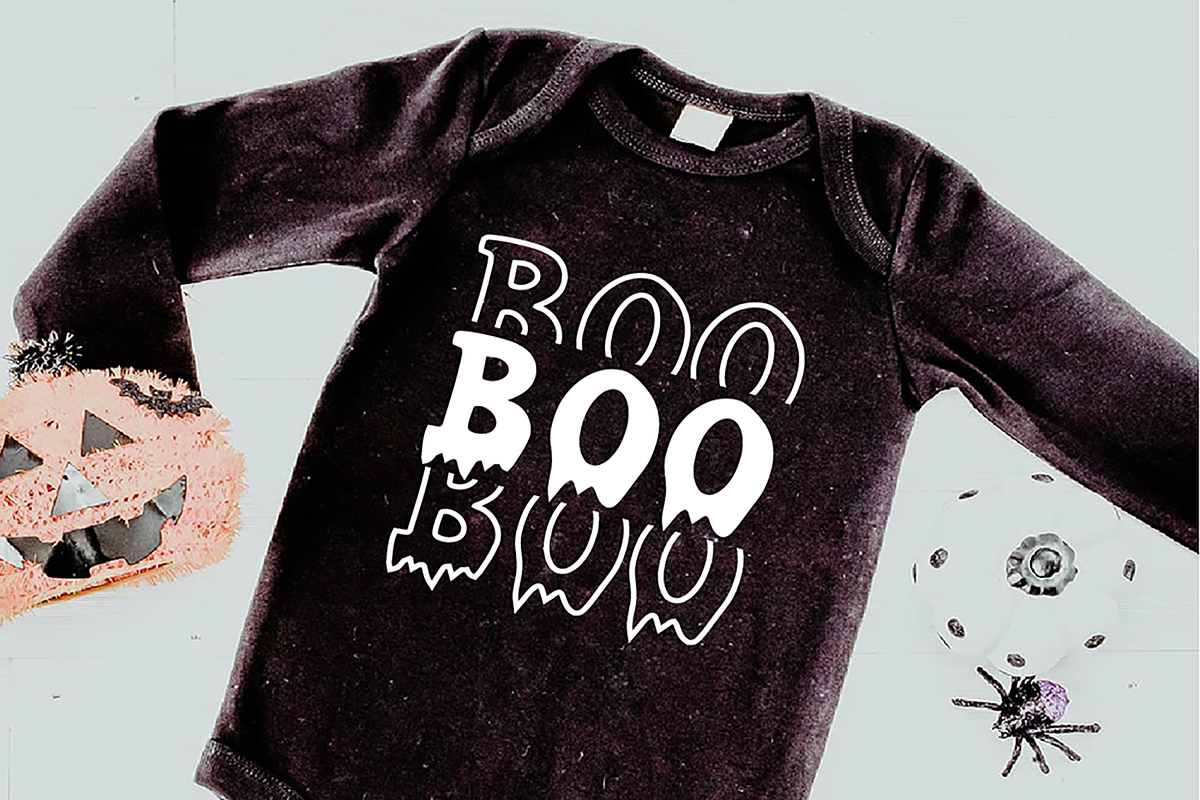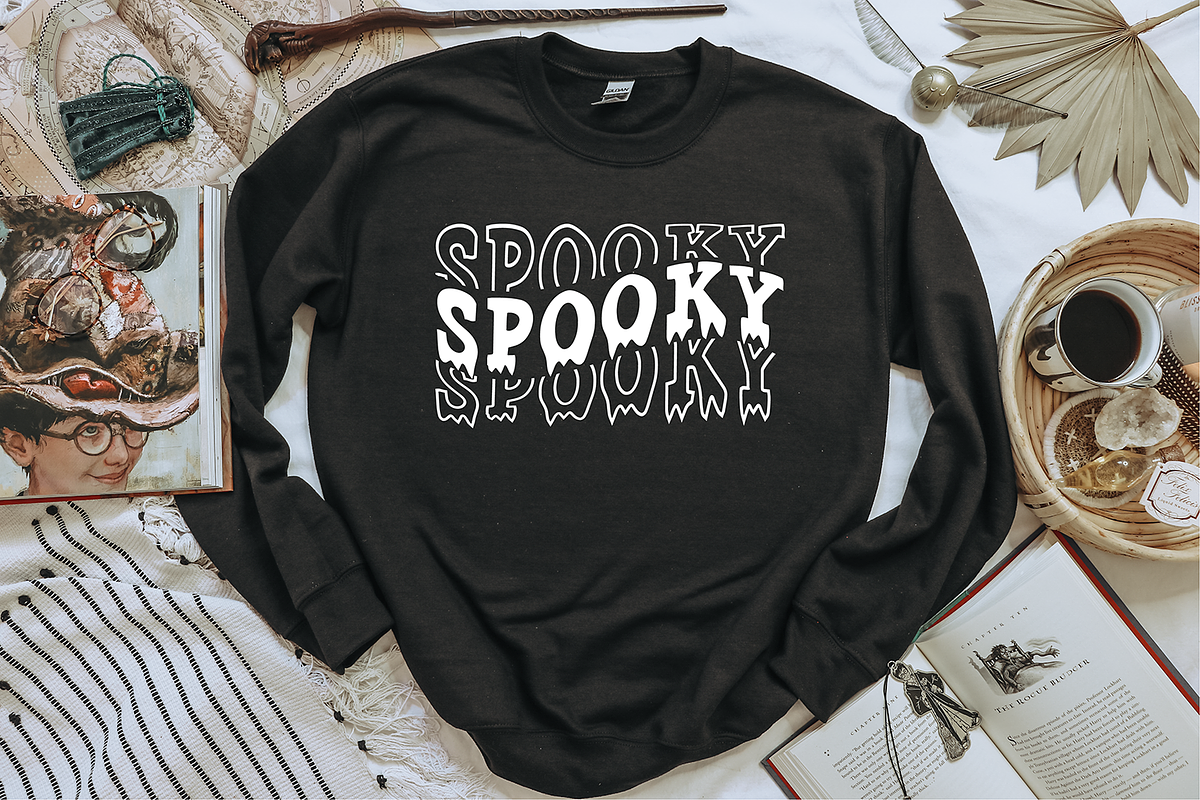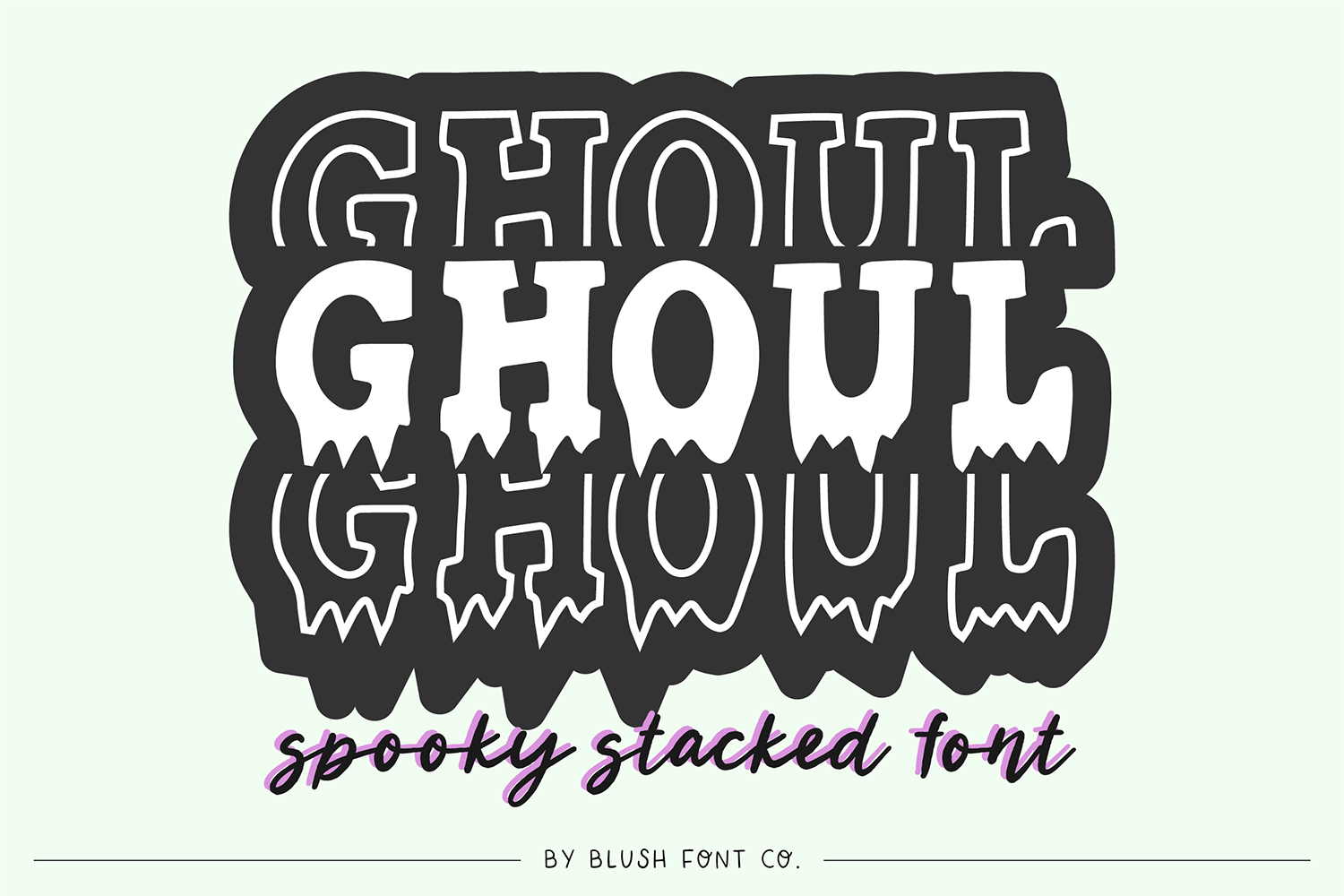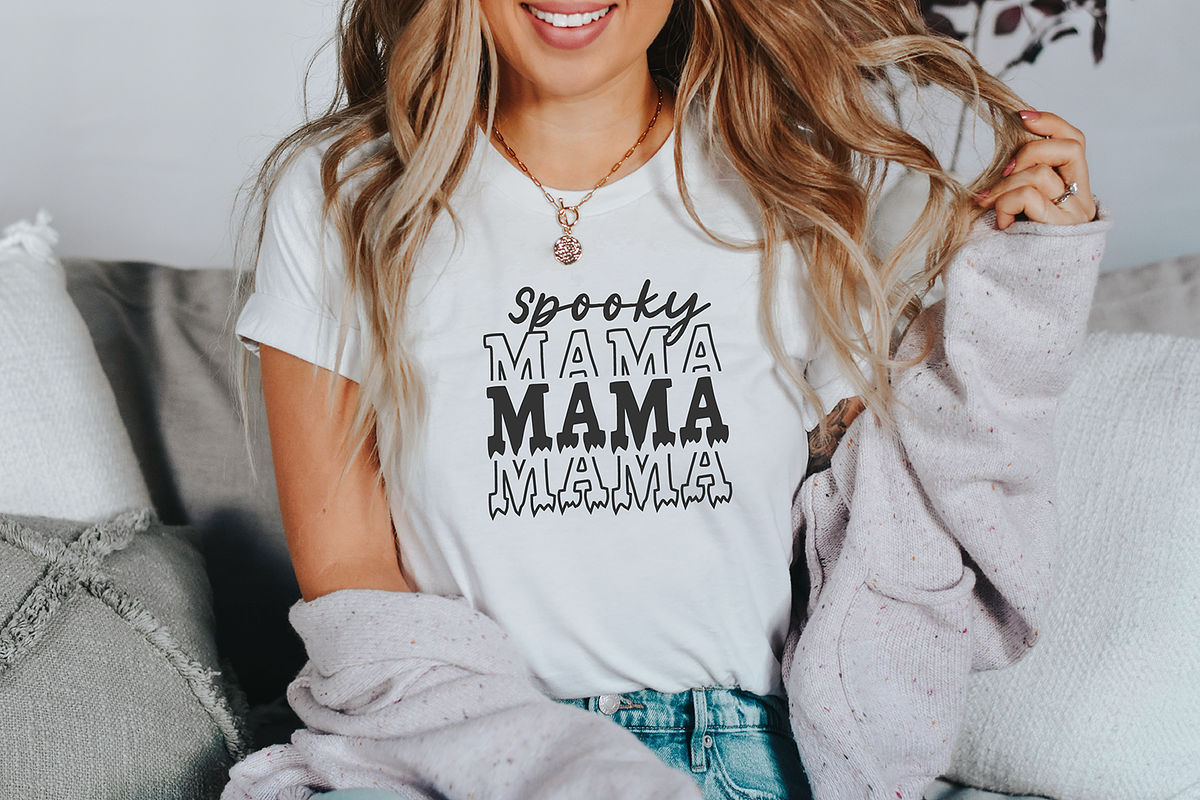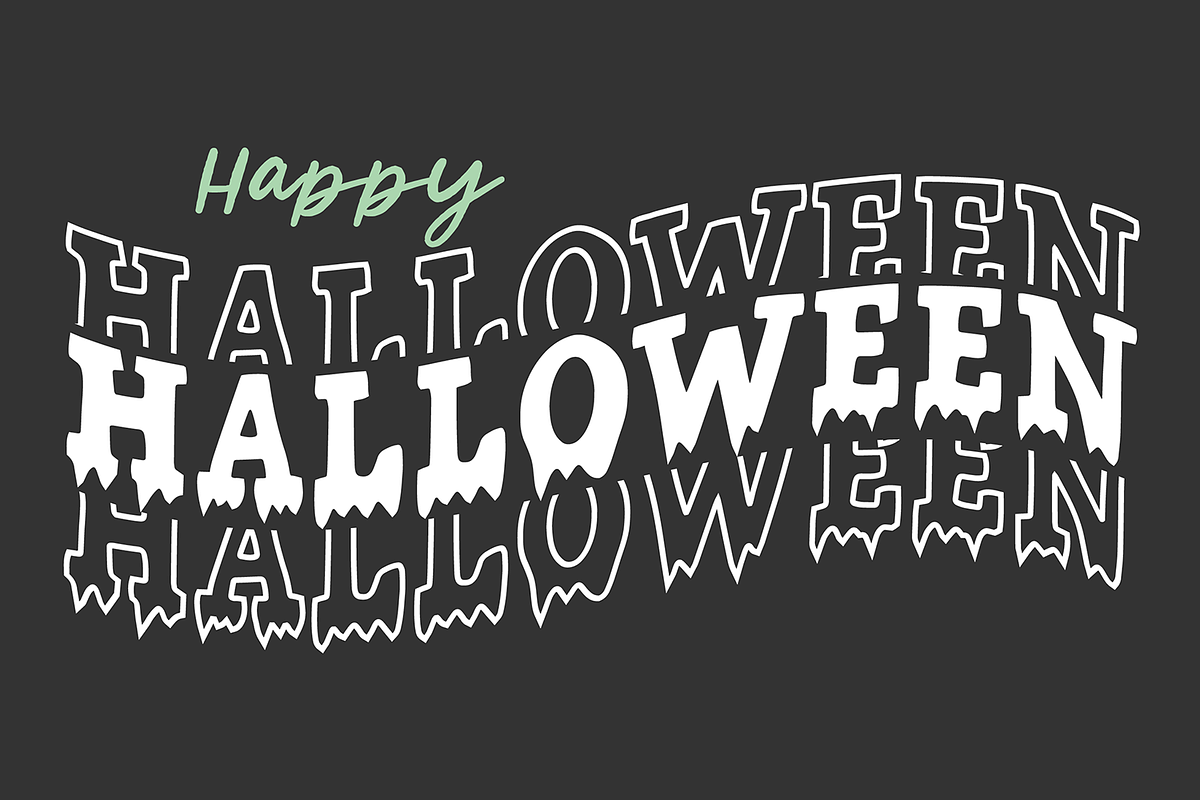
GHOUL STACKED Halloween Font
"Ghoul Stacked"
A Spooky Stacked Halloween Font
This is an installable font that will work great with your Halloween party invitations, web graphics, and other Halloween decor.